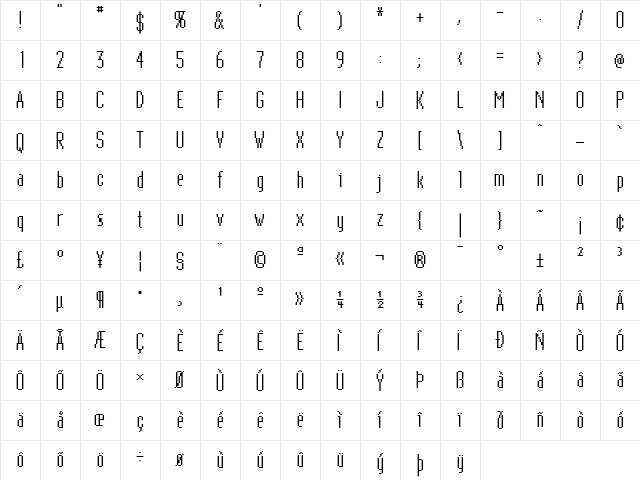
NewGenevaNineICG Regular
Design Context for NewGenevaNineICG Typeface
NewGenevaNineICG offers clean, dependable letterforms without strong stylistic allegiance, making it a practical choice for designers who need flexibility.